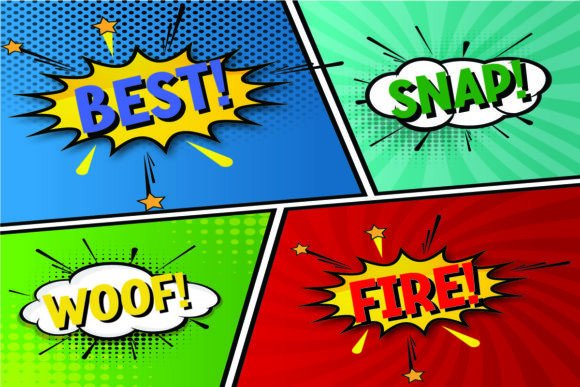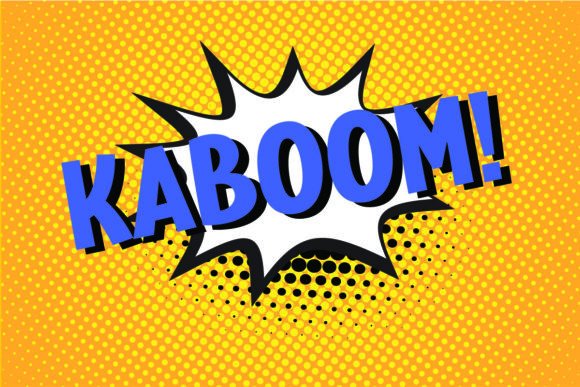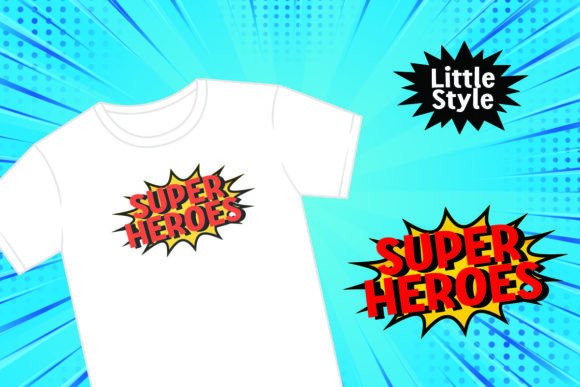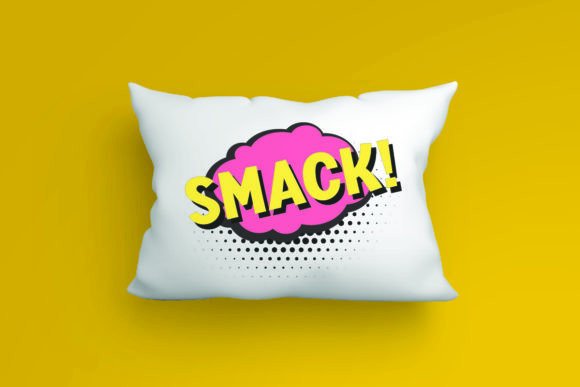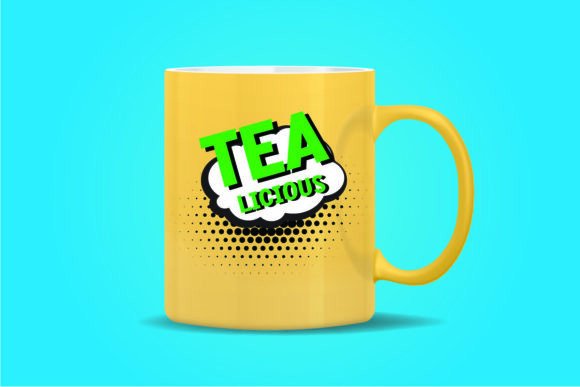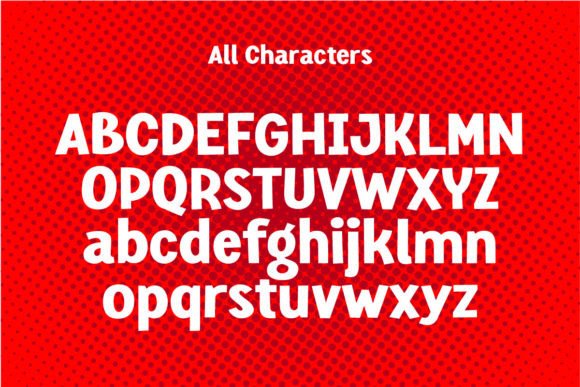
Introduction to Mangaka Font
Mangaka is a fun and lively cartoon font designed for kids’ comics and manga headlines.
Its bold and playful style instantly grabs attention, making it perfect for capturing the imagination of young readers With its energetic flair, Mangaka adds a burst of excitement to any project, whether it’s comics, posters, or playful headlines.
Key Features of Mangaka Font